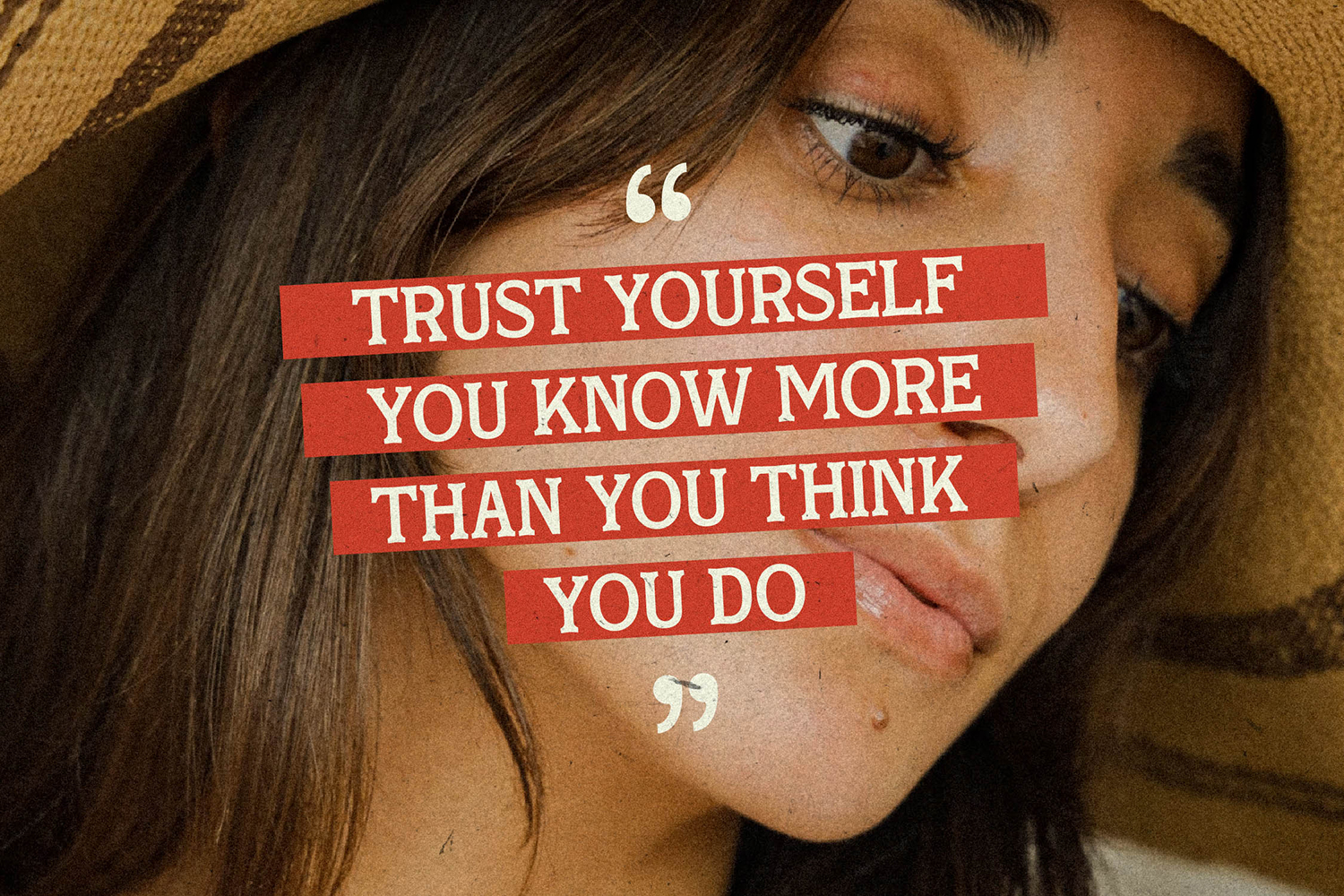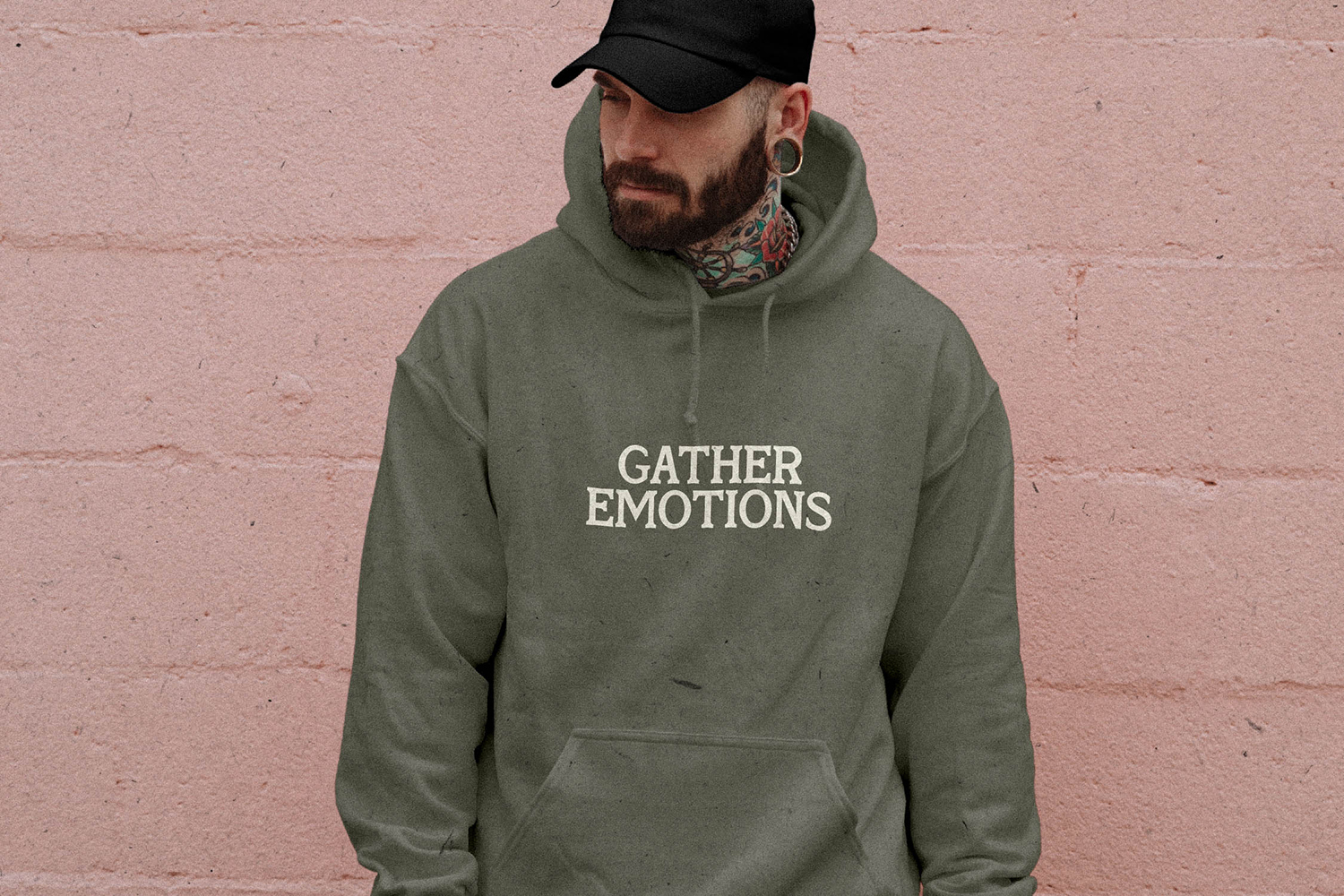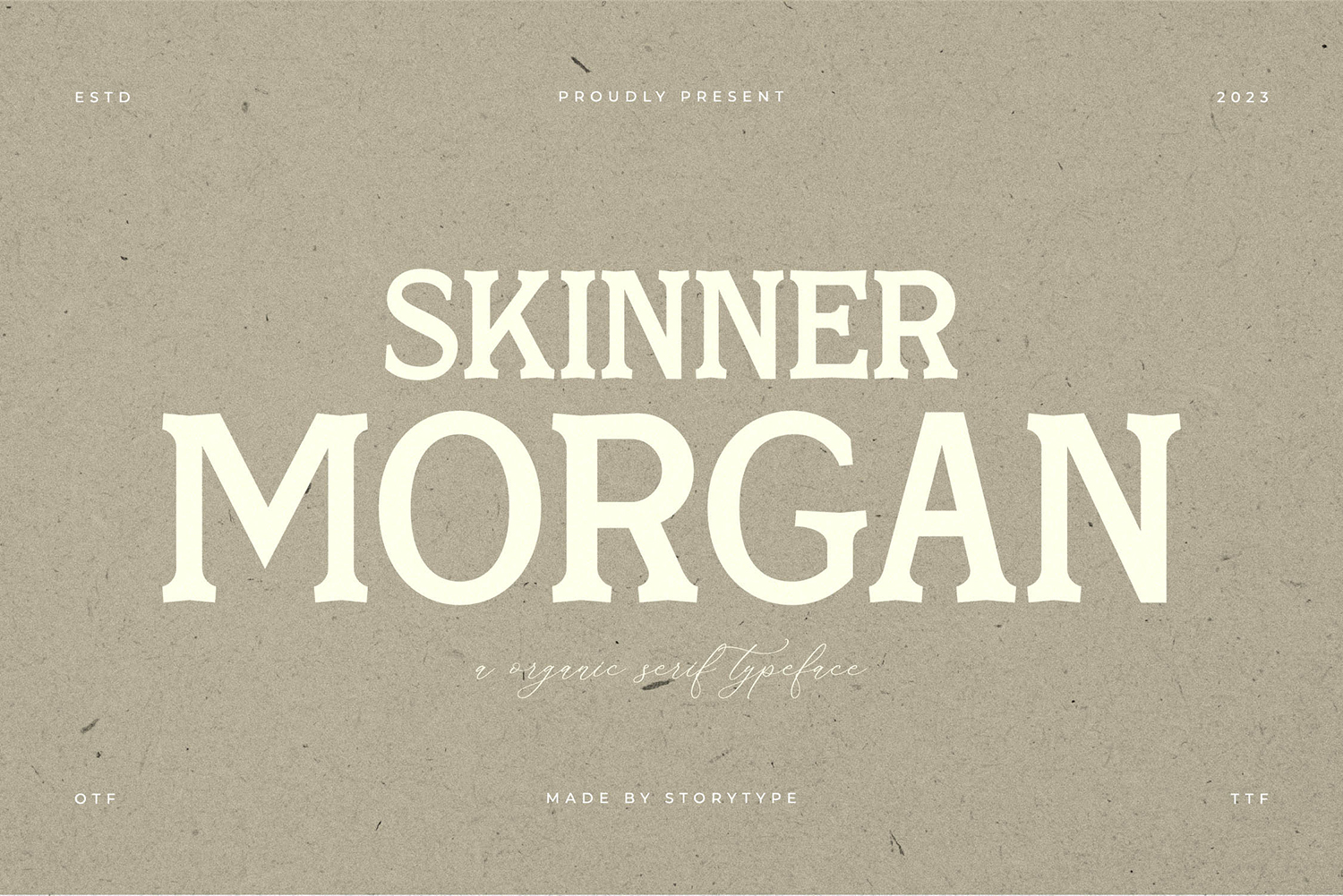
Skinner Morgan Free Font exudes a sense of elegance and refinement. Its delicate serifs and smooth curves evoke feelings of sophistication and class, making it the perfect choice for any project that requires a touch of timeless beauty. Whether used in a formal document or a stylish design, this font is sure to leave a lasting impression.